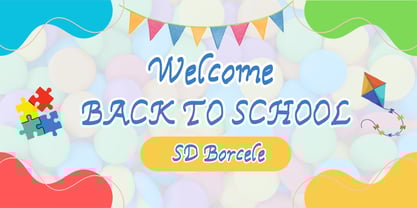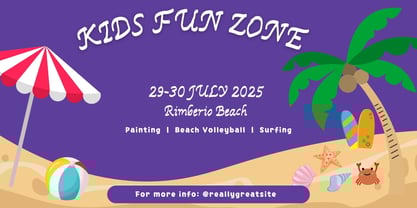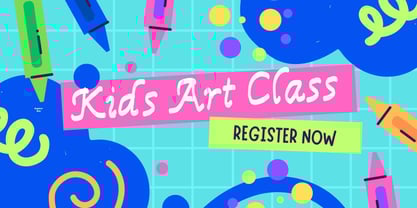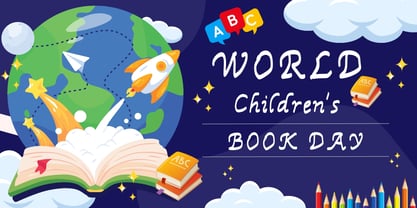
Avilusia kids
Avilusia Kids – A Playful and Whimsical Typeface for Young Creators
Avilusia Kids is a delightful and cheerful font designed to bring fun and imagination to any project. With its rounded edges, smooth curves, and friendly letterforms, this typeface is perfect for children’s books, educational materials, toy packaging, and playful branding. Whether you're creating storybooks, activity sheets, or digital games, Avilusia Kids adds a sense of joy and approachability to your designs.
Why Choose Avilusia Kids?
• Kid-Friendly Design: Soft, rounded shapes ensure readability and a welcoming feel.
• Playful and Versatile: Works well for headlines, logos, posters, and more.
• Handcrafted Charm: A natural and organic look that mimics a child’s playful handwriting.
• Multilingual Support: Includes a broad character set to accommodate multiple languages.
Perfect Pairings
Avilusia Kids pairs beautifully with simple sans-serif or handwritten fonts to create contrast while maintaining a fun and engaging aesthetic. Try combining it with a clean sans font for educational materials or a script font for whimsical branding.
Whether you’re a designer, educator, or storyteller, Avilusia Kids is the perfect typeface to bring youthful energy to your work. Let creativity shine with this vibrant and joyful font!